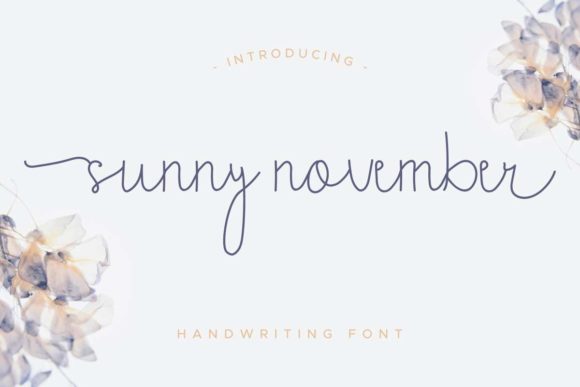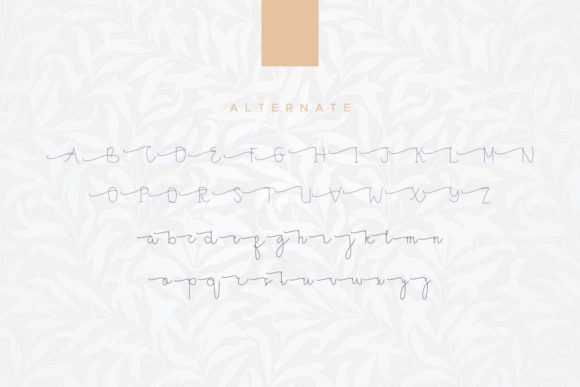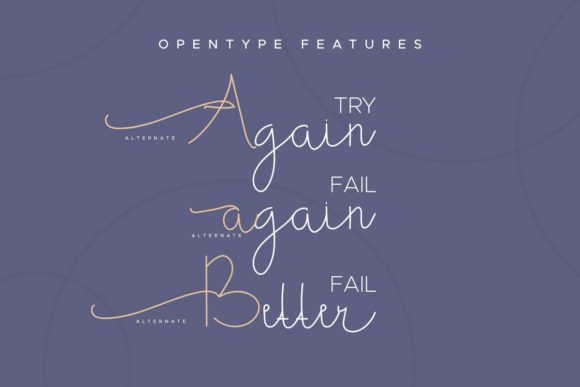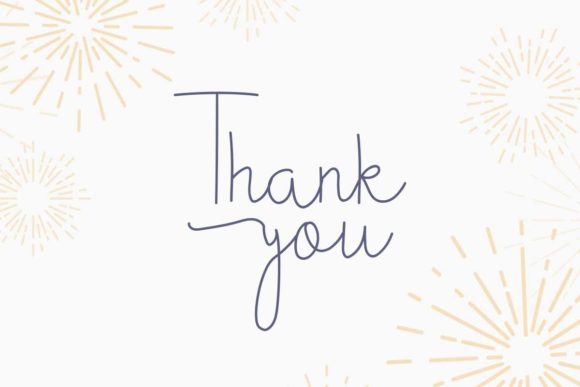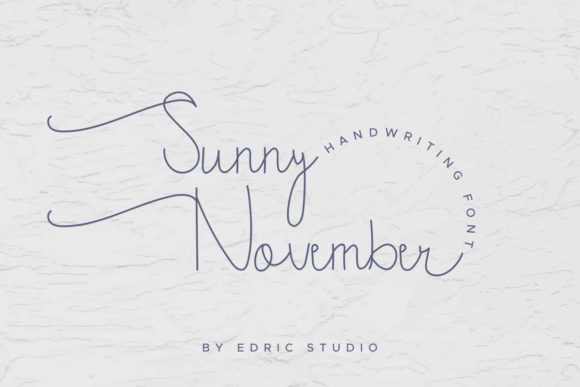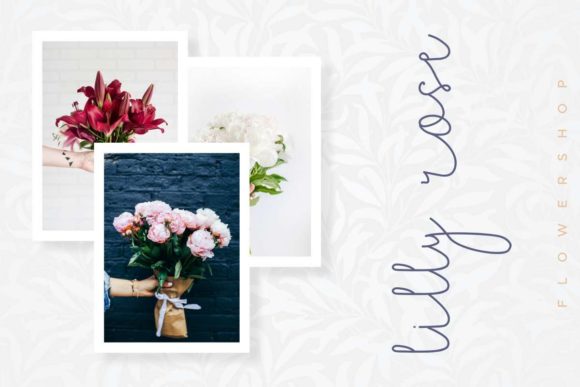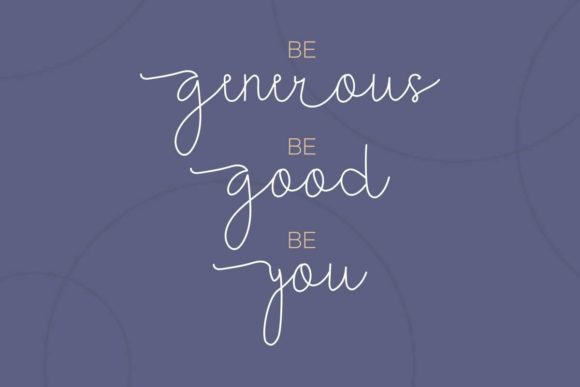
Sunny November Font
About Sunny November Font
Sunny November is playful and authentic, but also elegant. This versatile script font has a wide range of applications ranging from headlines to branding, and is guaranteed to add a magical touch to your next design.
This font is PUA encoded which means you can access all of the gorgeous glyphs and swashes with ease! It also features a wealth of special features including alternate glyphs and ligatures.